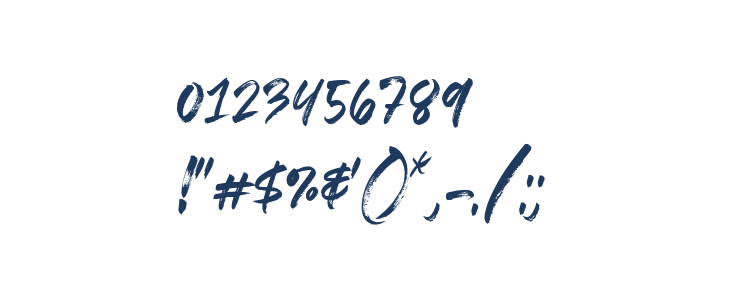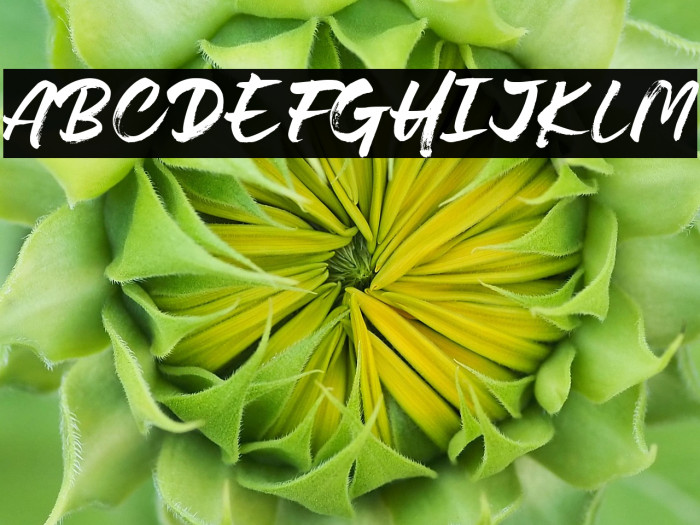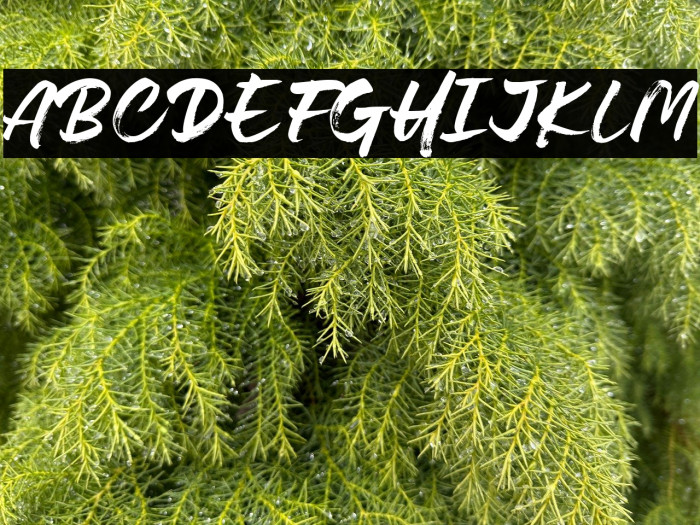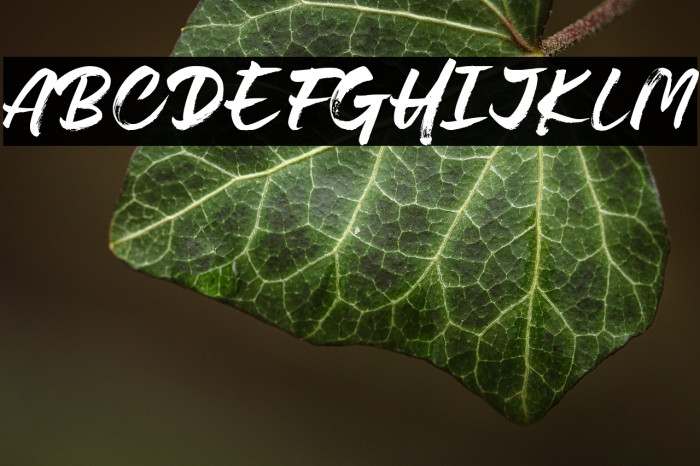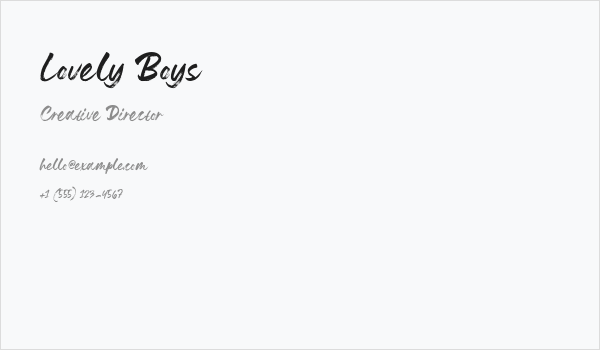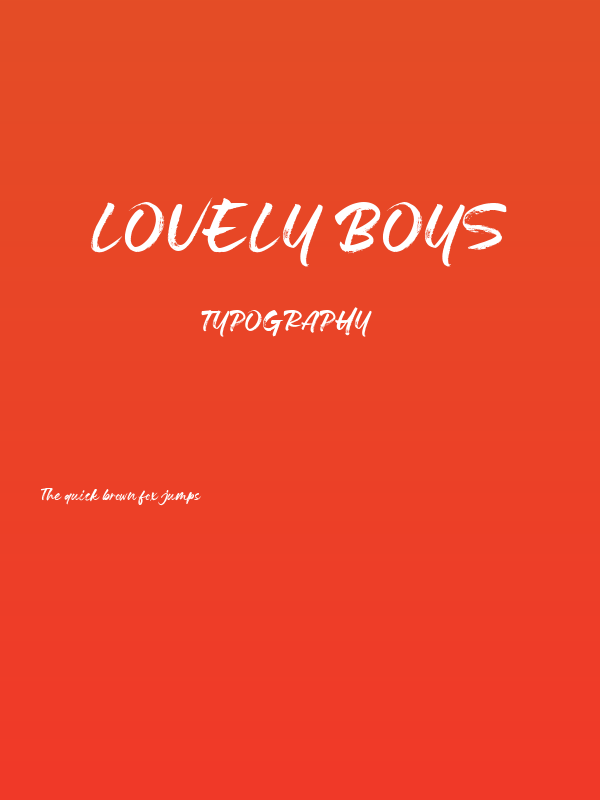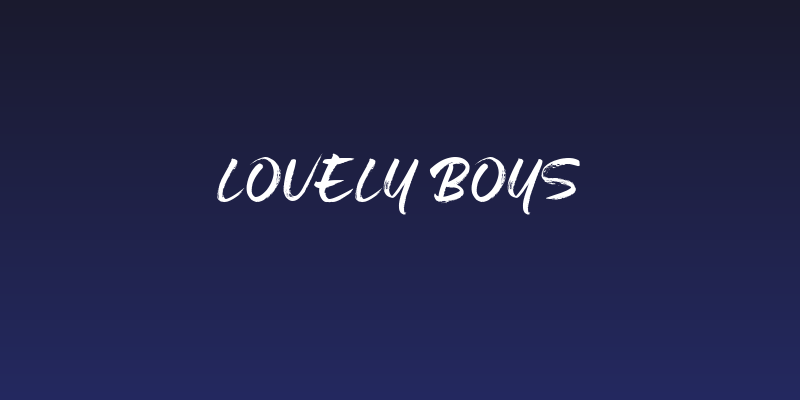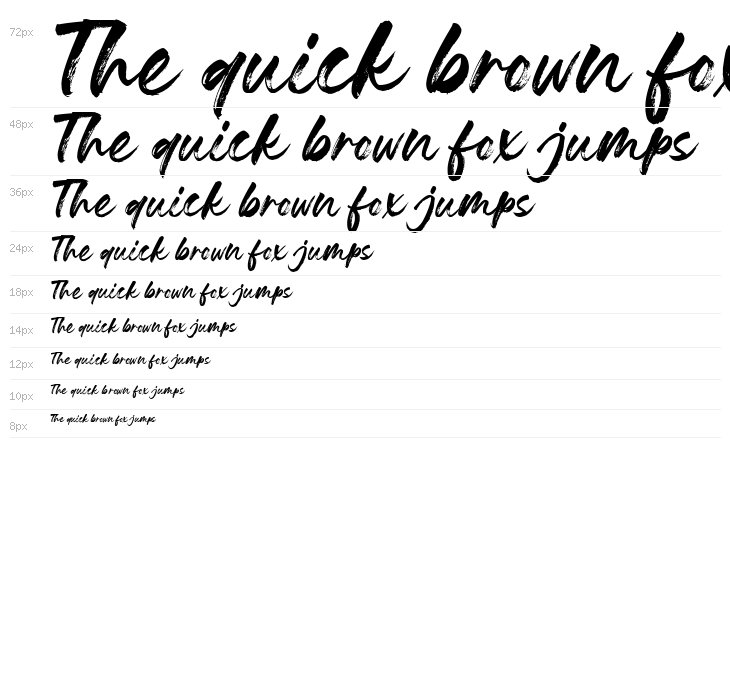
Lovely Boys Font
Lovely Boys Description
This font exudes a bold, dynamic energy with its brush-like strokes and expressive, handwritten style. The characters are crafted with a sense of movement and fluidity, giving them a lively and artistic appearance. The uppercase and lowercase letters maintain a consistent style, with slightly varying stroke thickness that adds to the font's organic feel. The numbers and special characters are equally expressive, making them suitable for creative and informal designs. The overall impression is one of creativity and spontaneity, perfect for projects that require a personal touch.
| Proposed Projects | Ideal for greeting cards, posters, branding projects, and social media graphics. |